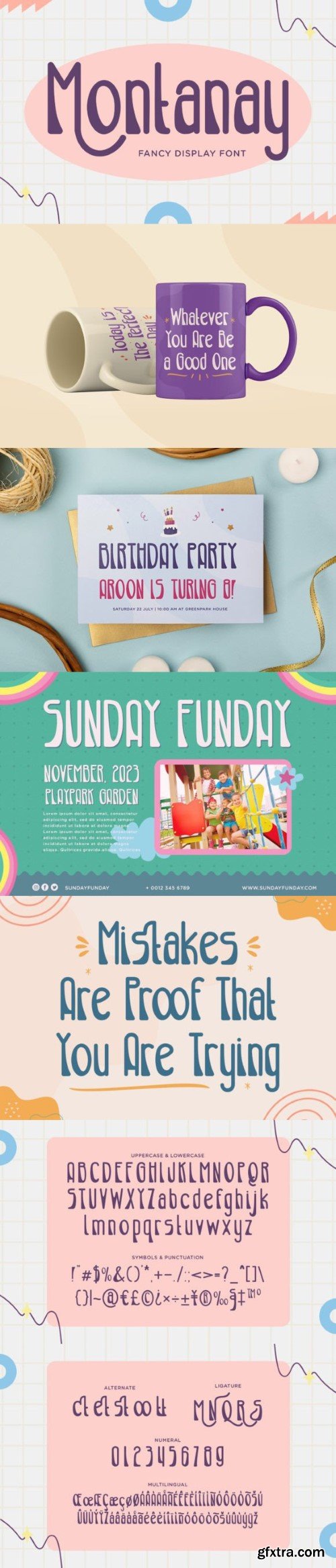
Montanay Font
Elevate your designs with the exquisite beauty of “Montanay” – a fancy display font that exudes elegance and charm. With its ornate and decorative letterforms, “Montanay” adds a touch of sophistication to any project. Each character is meticulously crafted to showcase intricate details and flourishes, making it perfect for luxury branding, wedding invitations, event posters, and more.